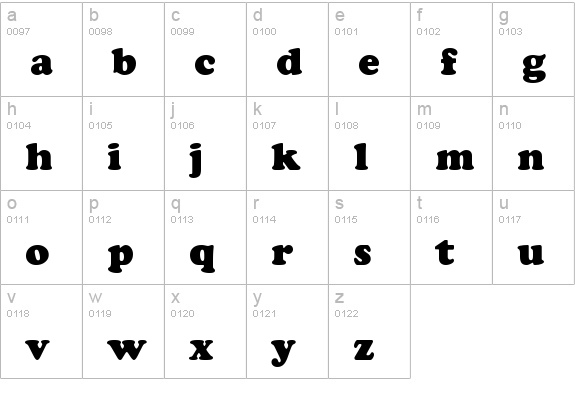
Marshmallow Normal is the standard, neutral variant in the Marshmallow typeface family \xE2\x80\x94 well suited to general body text, paragraphs, and standard typographic work.
Marshmallow Normal font is a delightful and charming typeface that will add a touch of sweetness to any project. With its soft and rounded edges, this font exudes a friendly and approachable vibe. It is a versatile font that can be used for a wide range of purposes, from logo designs to social media graphics, invitations, and more. The Marshmallow Normal font is perfect for those who want to create a warm and welcoming atmosphere in their designs. Its clean and legible letterforms make it easy to read, ensuring that your message gets across effectively. Whether you are designing for a children's book, a bakery website, or a cute greeting card, this font will bring a sense of playfulness and joy to your creations. One of the best things about the Marshmallow Normal font is that it is free! Yes, you read that right. This amazing font is freely available to download at FontsMarket.com. With just a few clicks, you can start using this delightful typeface in all your projects. And the best part? You don't have to worry about any licensing restrictions or hidden fees. It's completely free for personal and commercial use. So, why wait? Embrace the sweetness of Marshmallow Normal font and let your creativity shine. Download it now from FontsMarket.com and start adding a touch of whimsy and charm to your designs.